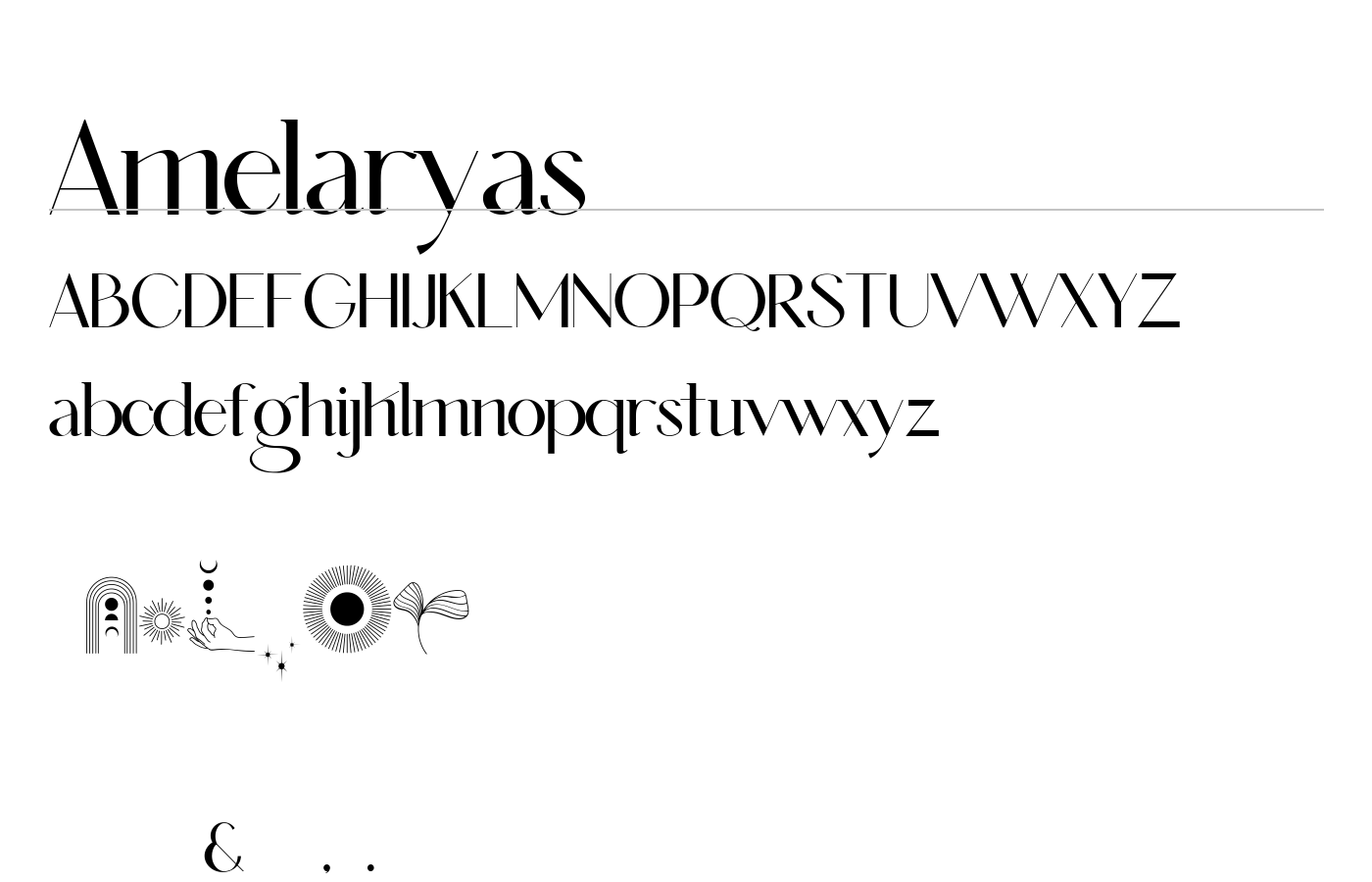
Amelaryas is an elegant serif font with a modern, high-contrast style and distinctive, graceful curves that lend it a refined and artistic feel. Its delicate strokes and fine details make it ideal for luxury branding, fashion editorials, or sophisticated logos where a touch of creativity and sophistication is desired. This font shines in headlines and display uses, capturing attention with its stylish and unique character.
Amelaryas Font
About Amelaryas Font